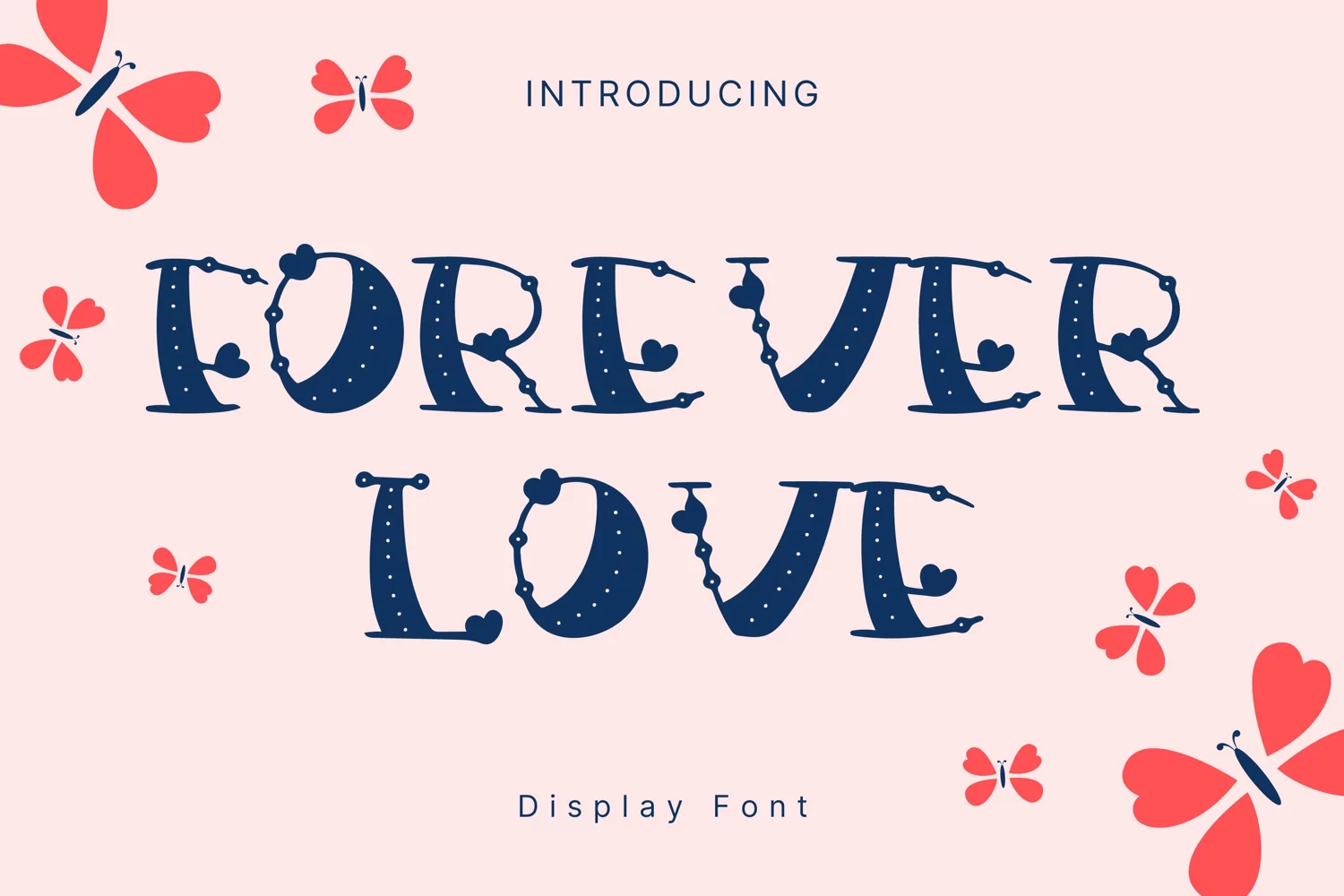
Created By AchiArt
Forever Love Style
ForeverLove
Forever Love Style is a whimsical and clean handwritten font. It can easily be matched to an incredibly large set of projects, so add it to your creative ideas and notice how it makes them stand out!